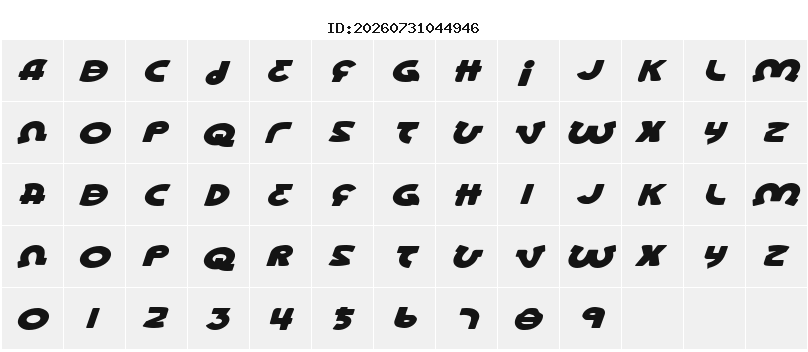
Lionel Expanded Italic Preview
• Font Name: Lionel Expanded Italic
• Font Style: Expanded Italic
• Full Font Name: Lionel Expanded Italic
• PostScript Name: LionelExpandedItalic
About Lionel Expanded Italic.ttf
Lionel Expanded Italic.ttf is a modern, elegant sans-serif font designed for ultimate readability and visual harmony. Perfect for branding, headlines, web design, and print materials.